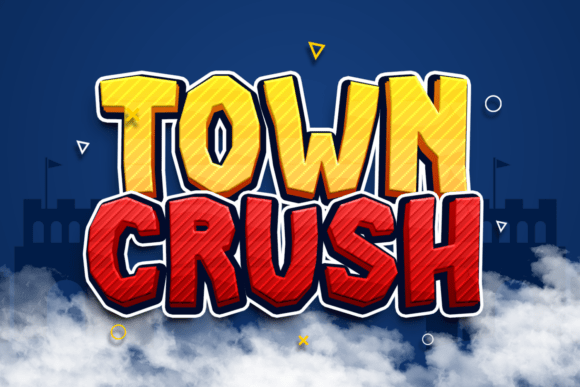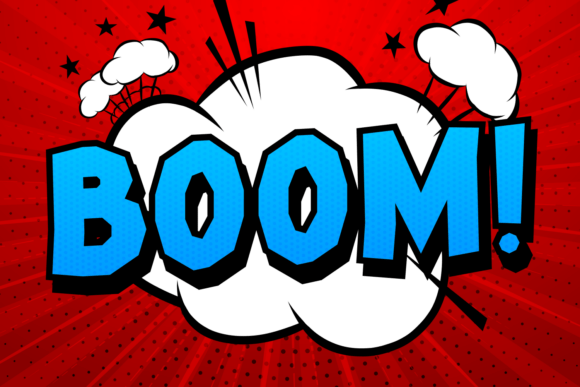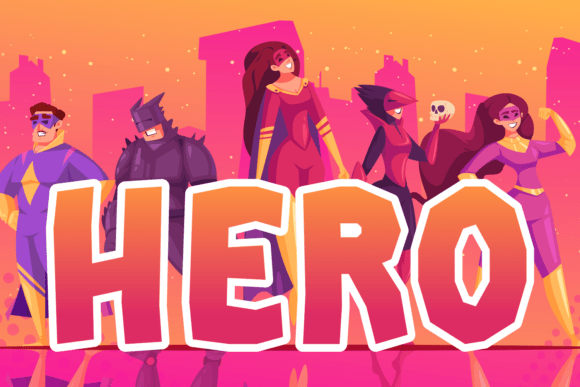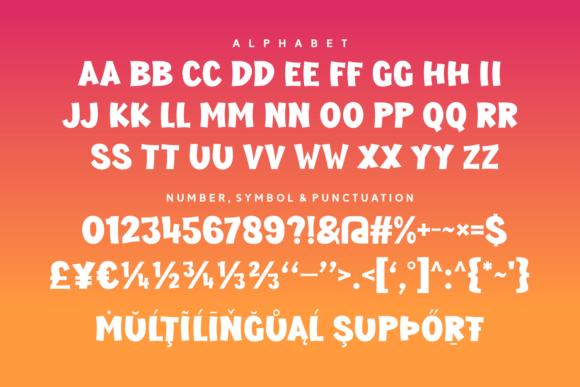
Wasted Comic Font
Experience “Wasted Comic,” a charming blend of diverse font styles offering a delightful visual experience. This multi-faceted typography stunner merges the fun of kids fonts, comic and superhero fonts, with the elegance of beautiful and popular fonts. It is as comfortable splashed across a hero headline as it is whispering in a delicate craft font. Its uniqueness extends to its utility as a social media, photography and sublimation font.
Simple yet sublime, “Wasted Comic” is a perfect fit for school and print projects, infusing an engaging charm into every cursive or accent line. Dress up your apparel projects or lend authenticity to your book covers with this versatile font. It’s spot-on for branding, cards, clean cover designs, and even for greeting card fonts.
Transform logos with “Wasted Comic” as a logotype font, create compelling magazine text, or elevate packaging designs. Let your quotes speak volumes with its smooth swirls, or print dynamic T-shirts with this trendy cartoon-styled font. Regardless of the season, “Wasted Comic” maintains its appeal, supported by multilingual capabilities for a global audience. Reimagine design with “Wasted Comic”– it’s not just a font, it’s a typographical adventure.